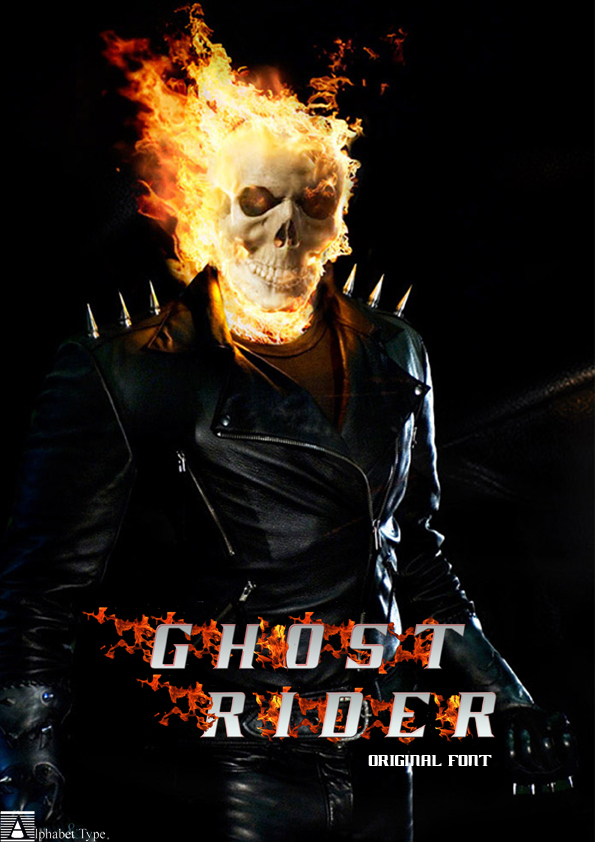
Preview and download Ghost Rider Movie Font. Created by Alphabet & Type in Gothic Modern styles with 100% Free license.
Note by Alphabet & Type | |
GHOST RIDER font: directly from the Best movie by MARK STEVEN JOHNSON, with NICOLAS CAGE, the original font for all lovers. Use ADOBE Photoshop for the original border from title. |